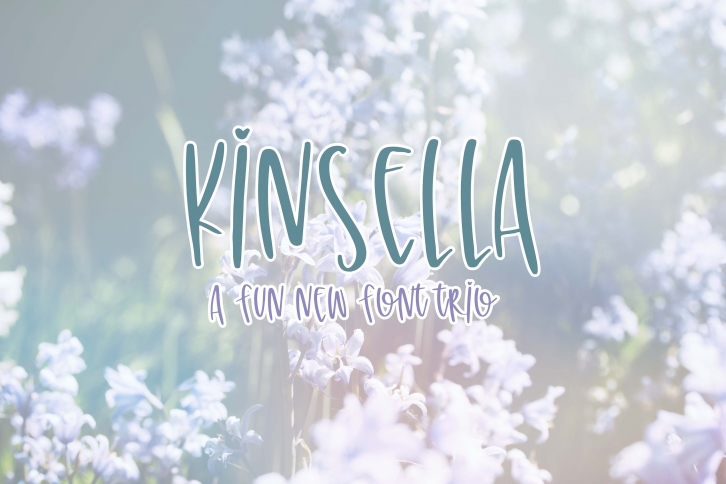
Kinsella Trio is a beautiful font that was designed by On The Spot Studio. It's a great choice for designers and creatives who need such a font. It was released on July 17, 2018 and the file size is 3.80 MB. Kinsella Trio may give a more youthful, expressive and casual look to your project. It is a very beautiful, refined, elegant, and high-quality font.